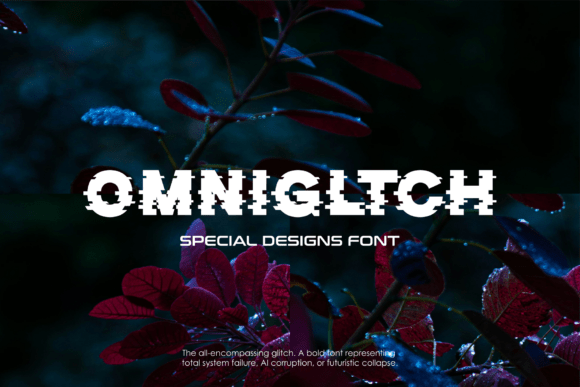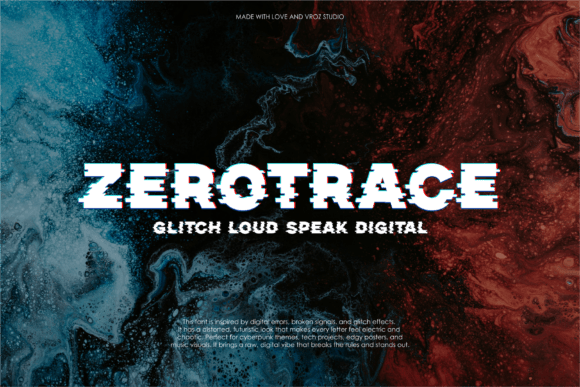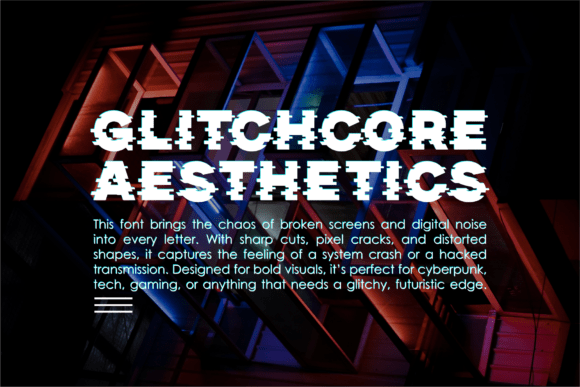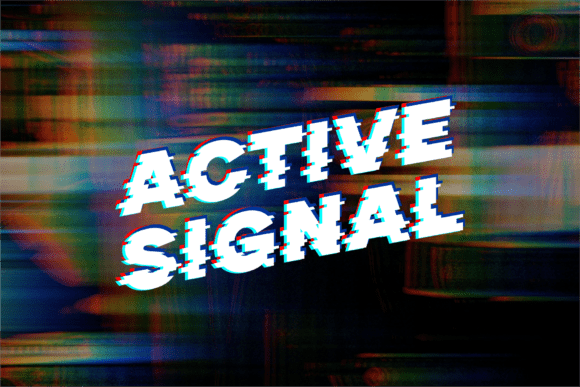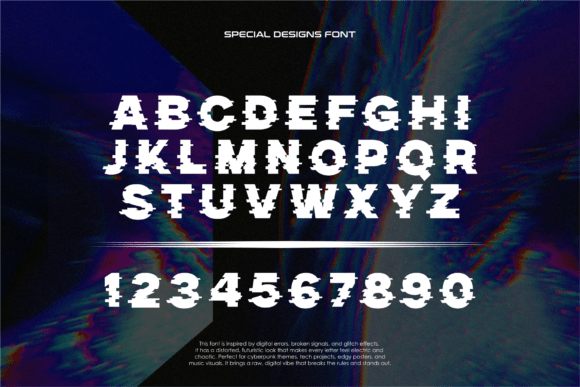
Discover the Futuristic World of Gltch Font
What is Gltch Font?
GLTCH is a modern font that combines futuristic and digital elements with a unique glitch effect. The design features characters that seem “glitched” or disrupted, giving it an energetic, techy vibe. It’s perfect for designs related to technology, cyberpunk, and digital themes. Available in OTF, TTF, and WOFF formats, GLTCH is versatile for both print and digital projects.
Key Features of Gltch Font
- Glitch Design: Distorted, techy characters for a futuristic look.
- Versatile: Great for logos, branding, posters, merchandise, websites, and more.
Honest Review
- ✨ The glitch effect adds a unique touch to any design.
- ✅ It’s incredibly versatile and can be used for a wide range of projects.
- 🔥 The font is bold and edgy, making it perfect for designs that need to stand out.
⚠️ One thing to note is that the glitch effect can be a bit overwhelming if not used carefully. It’s essential to balance the font with other design elements to avoid visual overload.
🤔 Additionally, some characters may not be suitable for body text due to their distorted nature. It’s best used for headlines or titles.
The Story Behind Gltch Font
The Gltch Font was created with the intention of capturing the essence of digital disruption. The designer wanted to create a font that embodied the futuristic and edgy feel of technology and cyberpunk culture. By distorting characters, the designer aimed to create a sense of energy and movement.
- Q: Is Gltch Font suitable for body text?
- A: Due to its distorted nature, Gltch Font is best used for headlines or titles. For body text, consider a clearer font.
Why Choose Gltch Font?
GLTCH stands out with its bold, edgy look, perfect for brands that want to be noticed. It’s a great choice for memorable, unique designs. Add GLTCH to your projects and give them a digital, modern twist!